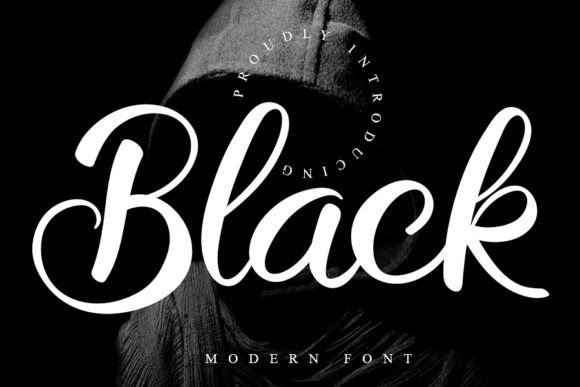
Introducing the newest addition to our font collection - Black Font! This script font, created by ABBAsalam, is sure to become your favorite go-to font for all your designing needs. With its neat and casual handwritten style, Black Font is the perfect choice for crafting, digital design, presentations, and even making personalized greeting cards.
This font exudes a sense of elegance and sophistication, yet remains approachable and welcoming. Its sleek, smooth curves and strokes give it a natural flow that is easy on the eyes and pleasing to look at. The attention to detail in each character is truly remarkable, making Black Font an exceptional choice for all your design projects.
One of the most striking features of Black Font is its versatility. Whether you're looking to create a bold statement or a more subtle and understated design, Black Font can do it all. Its timeless appeal and classic style make it perfect for any occasion or project.